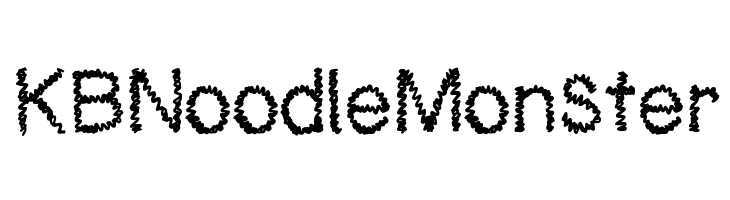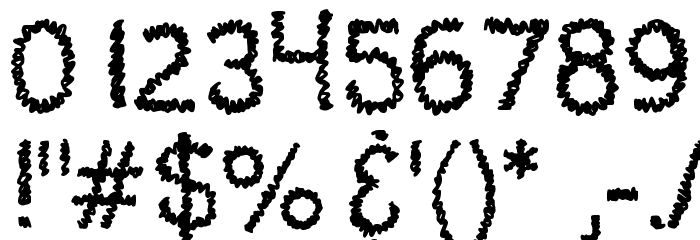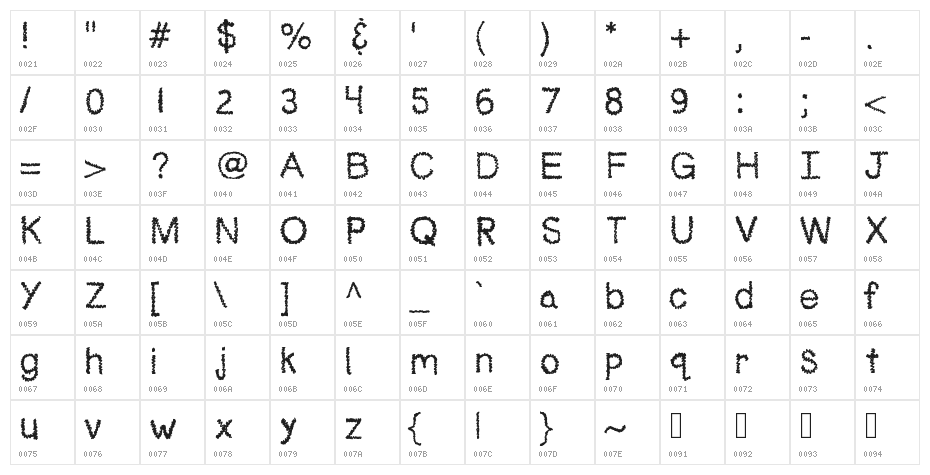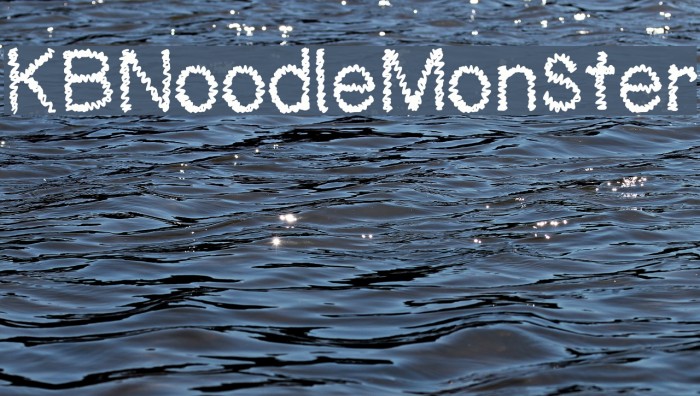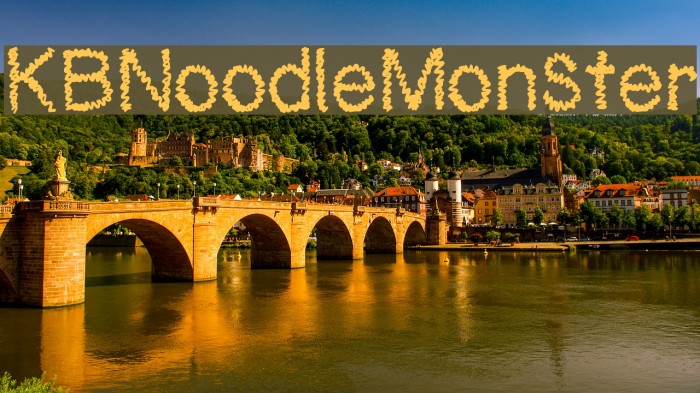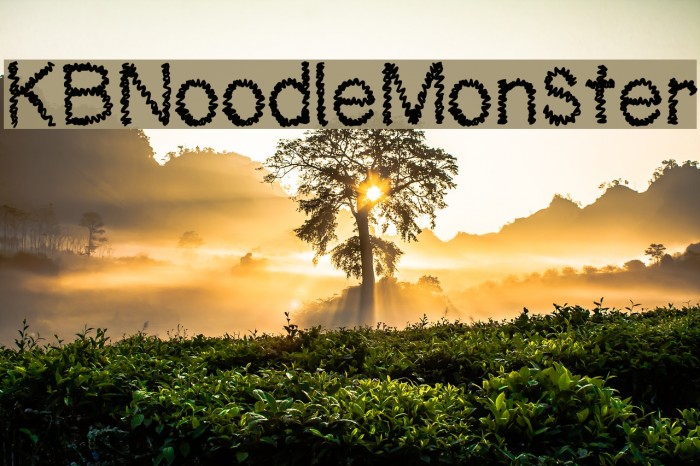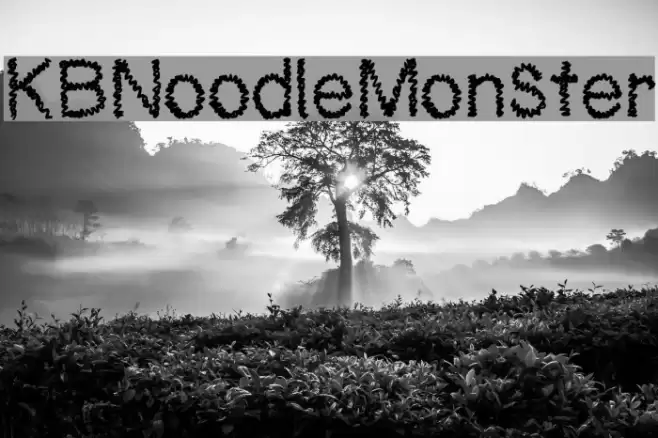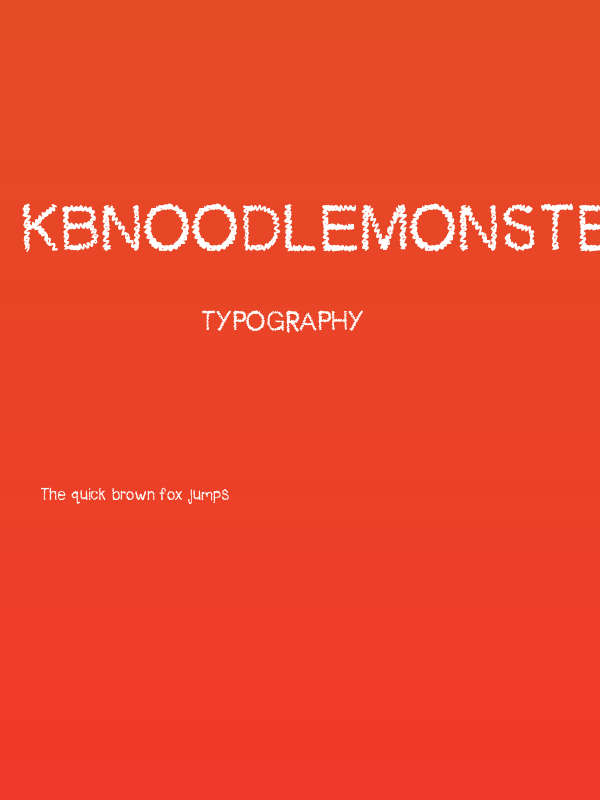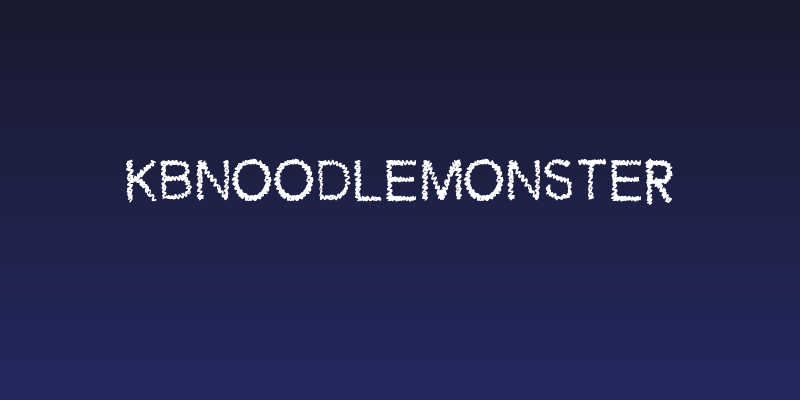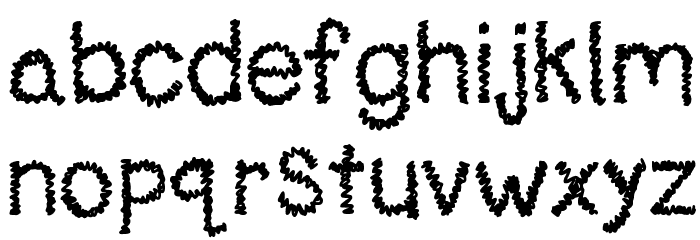
KBNoodleMonster Font
KBNoodleMonster Description
This playful and whimsical font features a unique, curly design that resembles a series of noodles or spirals forming each character. The letters are bold and eye-catching, with a consistent thickness throughout, giving them a cohesive and uniform appearance. The font maintains a high level of legibility despite its decorative style, making it suitable for various creative applications. The characters are evenly spaced, ensuring readability while maintaining the font's quirky charm. The overall style is distinctly modern and fun, perfect for projects that require a touch of humor and creativity.
Overall StyleModern, Fun, Whimsical
Proposed ProjectsIdeal for children's books, playful branding, party invitations, and creative posters.